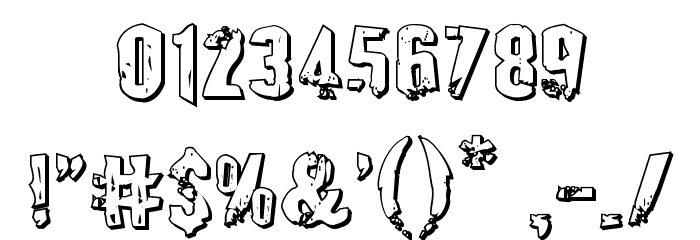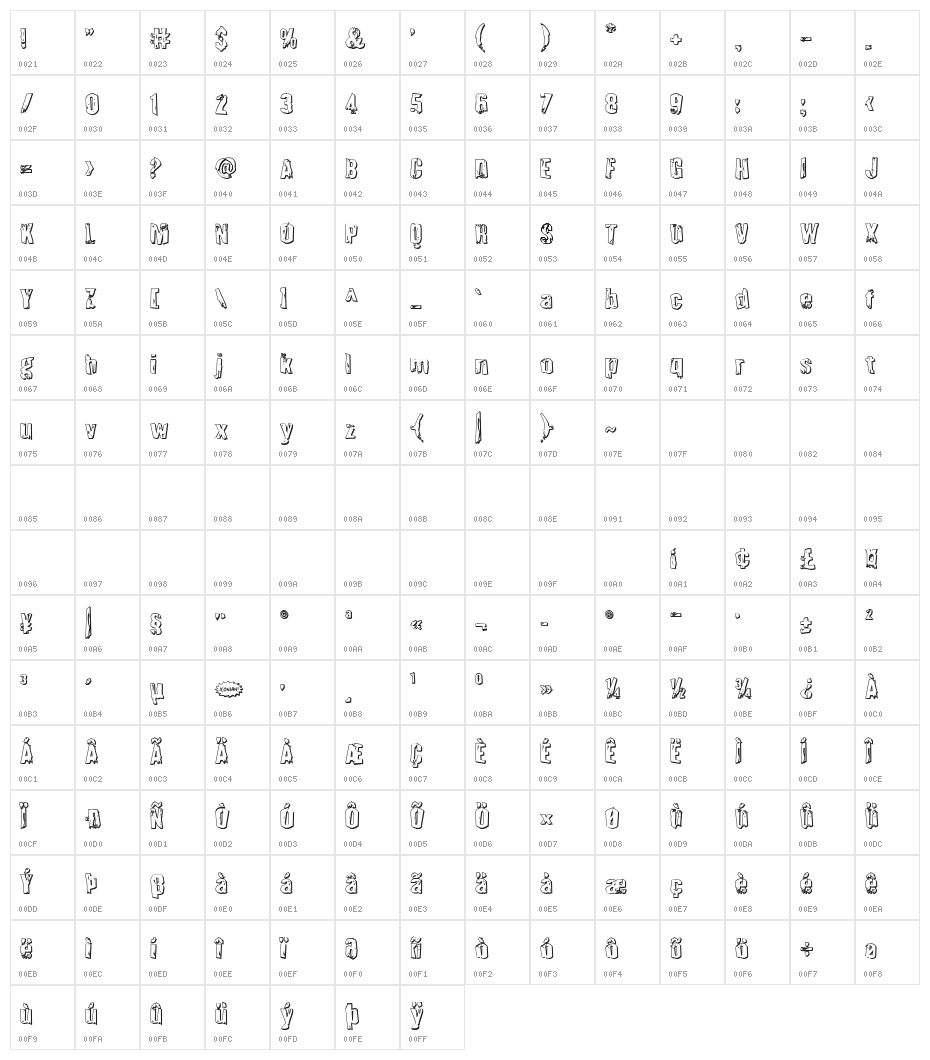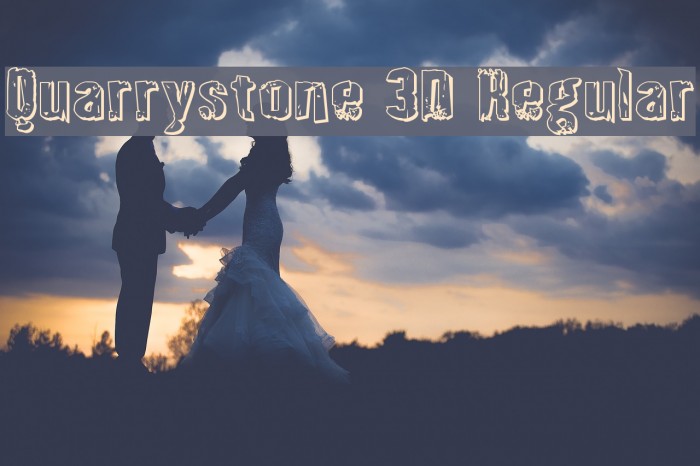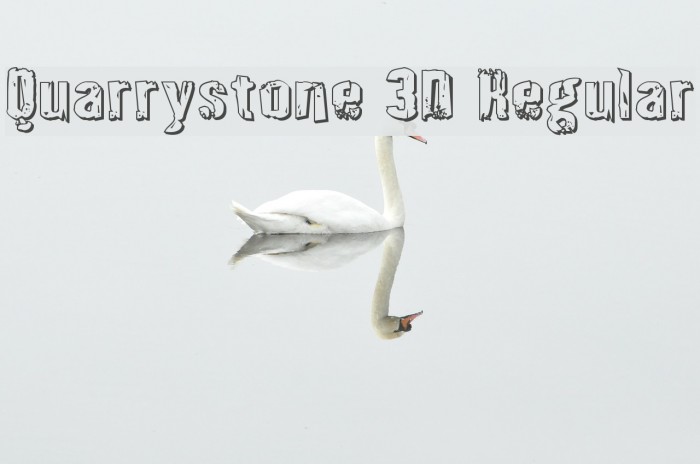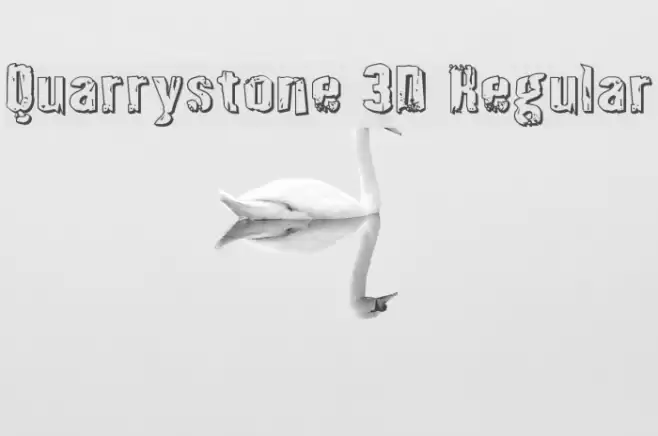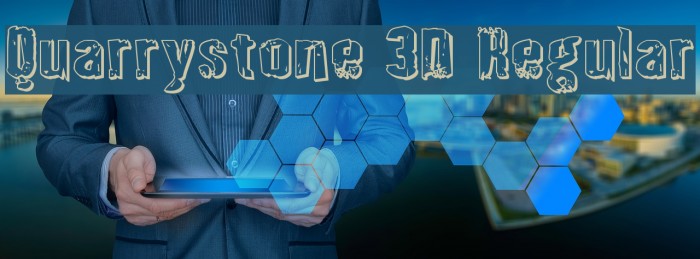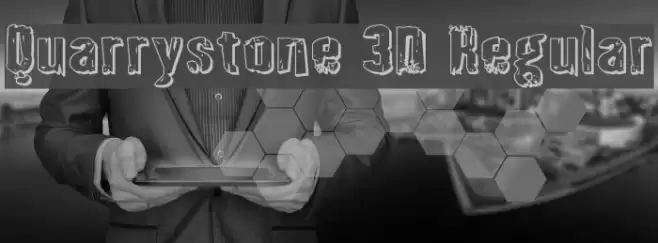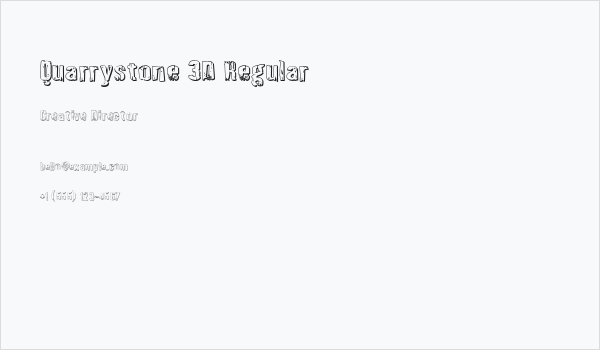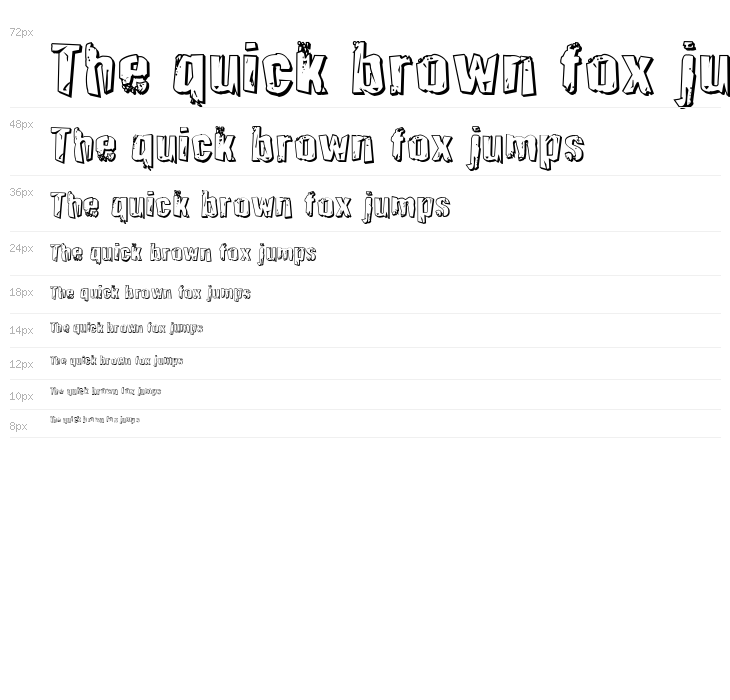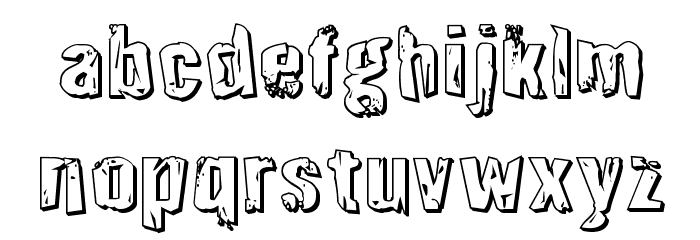
Quarrystone 3D Regular Font
Quarrystone 3D Regular Description
This font features a rugged, distressed 3D appearance, giving it a bold and dynamic look. Each character is outlined with a rough, textured edge, creating a sense of depth and movement. The design is reminiscent of stone or rock, with irregular, chipped surfaces that add to its unique aesthetic. The uppercase and lowercase letters maintain a consistent style, while the numerals and special characters complement the overall theme. This font is ideal for projects that require a strong, impactful visual presence.
| Proposed Projects | Ideal for posters, album covers, video game titles, and branding that requires a bold, edgy look. |